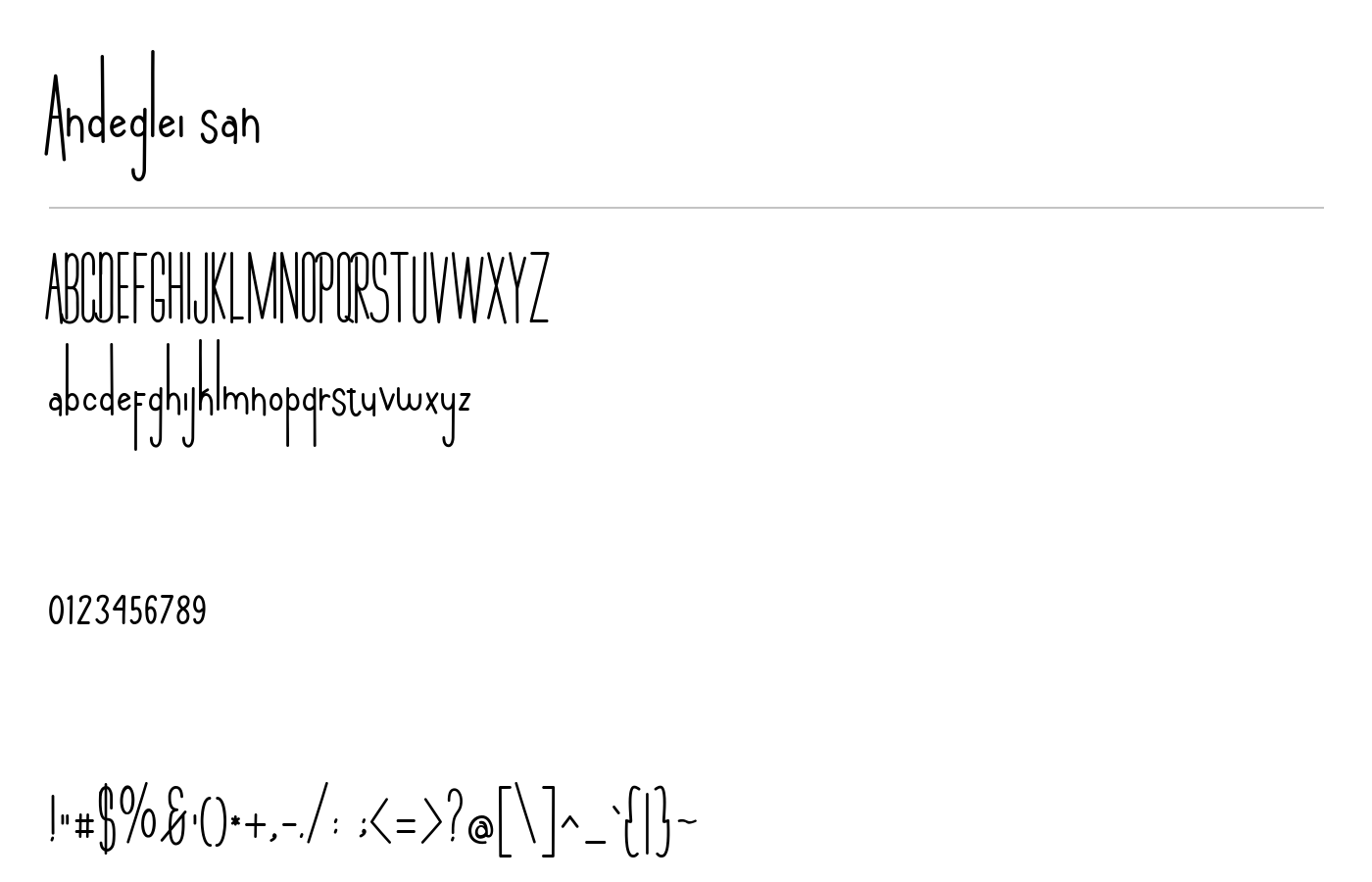
Andeglei san is a narrow, tall sans serif font with a playful and quirky personality, characterized by its slender letterforms and whimsical stroke variations. Its light weight and unusual shapes lend it a hand-drawn charm, making it perfect for creative headlines, informal branding, or artistic projects where a unique and friendly vibe is desired. This font works well in designs that seek to stand out with a distinctive, approachable, and slightly eccentric aesthetic.
Andeglei san Font